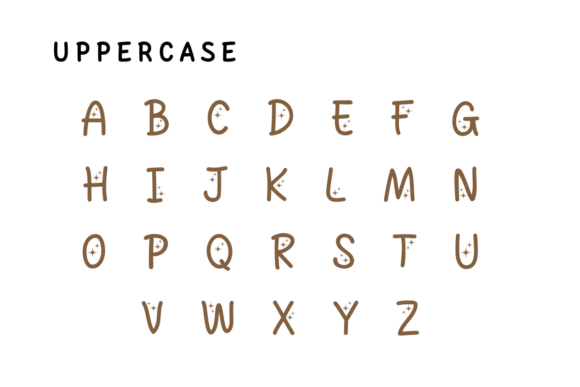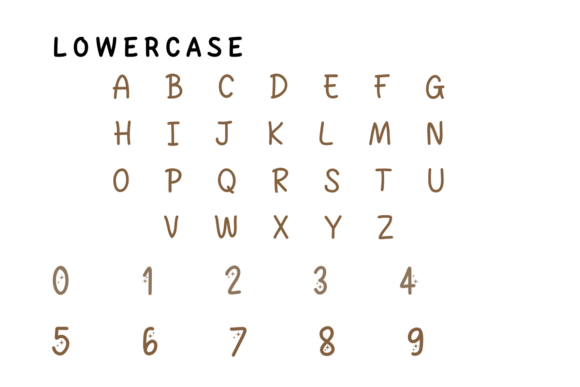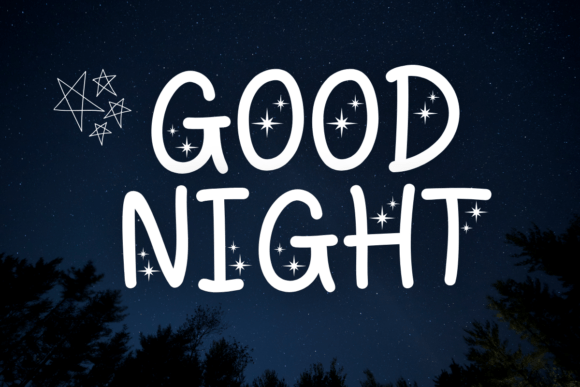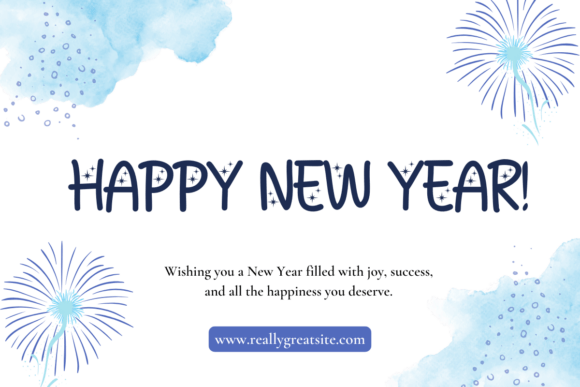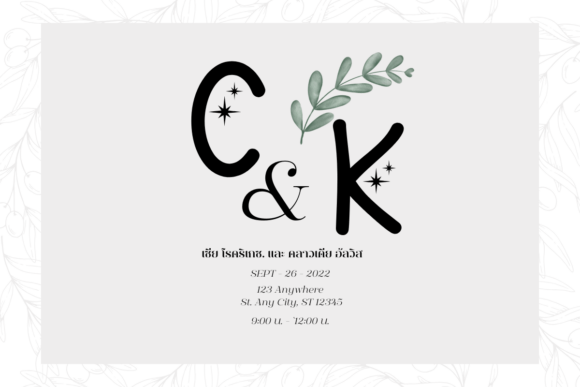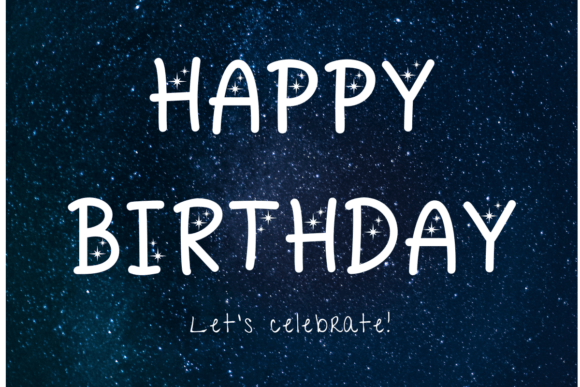
Introduction to Love Star Font
Have you ever stumbled upon a font that sparks joy and creativity? For designers, this moment is pure magic. It’s the moment when a project starts to take shape, and the right font is the missing piece that brings it all together. For me, that moment came when I discovered the Love Star Font, a beautiful and elegant decorative font that’s perfect for any creative project.
Whether you’re planning a special occasion, working on a design project, or simply want to add a touch of whimsy to your notes and journals, the Love Star Font is a valuable resource for designers. Its high-quality design and transparent background make it easy to work with, and the best part? It’s available for free download!
Key Features of Love Star Font
- High-quality vector design ideal for various creative projects, including graphic design, digital art, and print materials.
- Transparent background, allowing for seamless integration with any design resource, including images and backgrounds.
- High-resolution design, suitable for use in print materials up to 300 DPI, and digital displays.
- Unique, hand-drawn style, adding a touch of personality to any design project.
- Scalable design, allowing for easy resizing and manipulation without compromising image quality.
Honest Review: Love Star Font
As a designer, I’m always on the lookout for high-quality design resources that can elevate my creative projects. The Love Star Font is one such resource that caught my attention. I was excited to dive in and see if it lived up to its promise.
Here’s what I liked about the Love Star Font:
- ✨ The font’s design is unique and eye-catching, making it perfect for creating a memorable visual identity for your brand.
- ✨ The transparent background makes it easy to use the font in conjunction with other design elements.
- ⚠️ The font may not be suitable for all types of projects, particularly those that require a more formal or traditional aesthetic.
- ⚠️ The font’s complexity may make it difficult to use in certain design software or tools.
Overall, I’m impressed with the Love Star Font. It’s a high-quality design resource that can add a touch of creativity and whimsy to your projects. While it may not be suitable for every project, it’s definitely worth considering for those looking to add some visual interest to their design work.
The Love Star Font is ideal for creating social media graphics, blog posts, and other digital content. It’s also great for adding a personal touch to your presentations, reports, and other business documents. With its unique and creative style, the Love Star Font is sure to make your designs stand out.